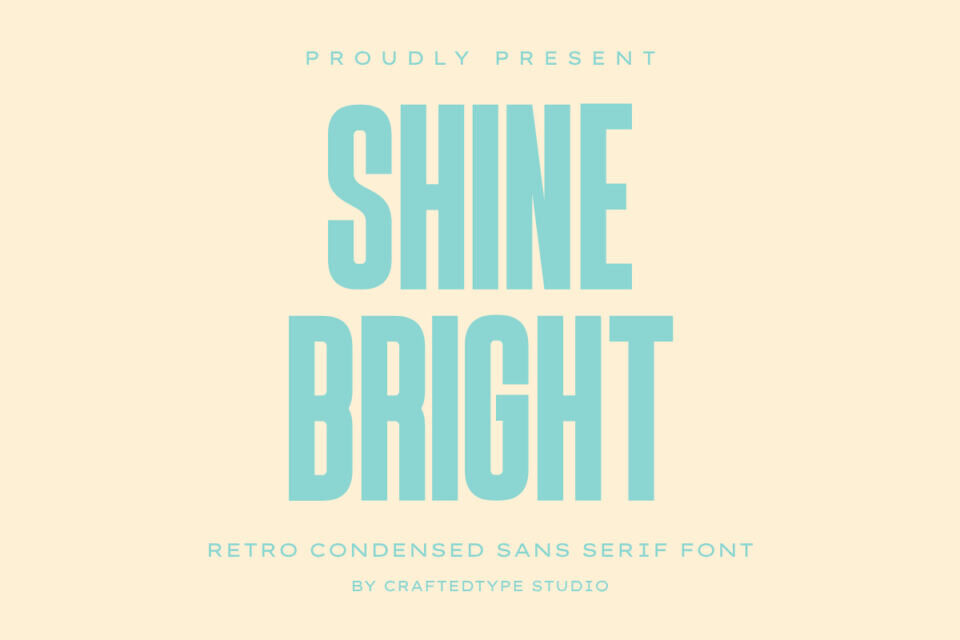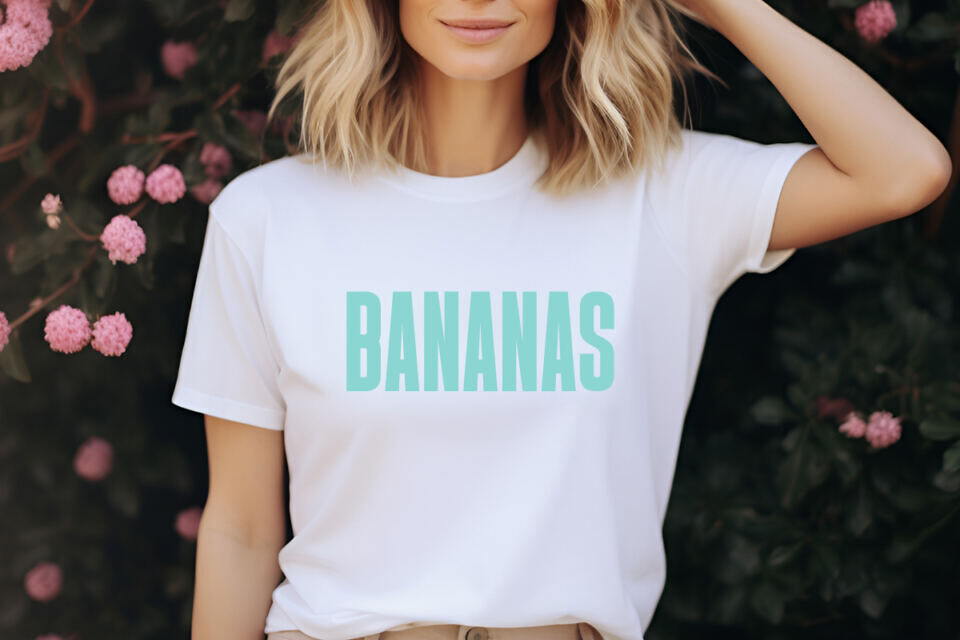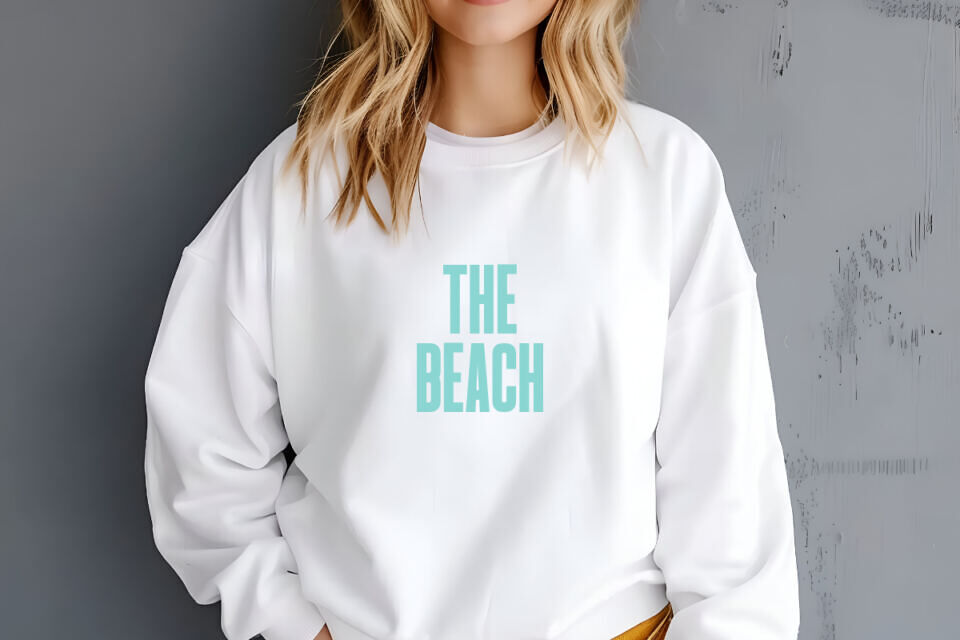
Shine Bright is a retro condensed sans serif font carefully crafted to bring a bold, vibrant, and nostalgic energy to your creative pipeline. Featuring tall, narrow architectural line work with smooth geometric edges, this typeface provides maximum legibility and presence for eye-catching titles and modern layouts.
It serves as an essential tool for the Print on Demand (POD) marketplace, fitting seamlessly onto retro t-shirt designs, cozy hoodies, mug sublimation prints, stickers, and summer event posters.